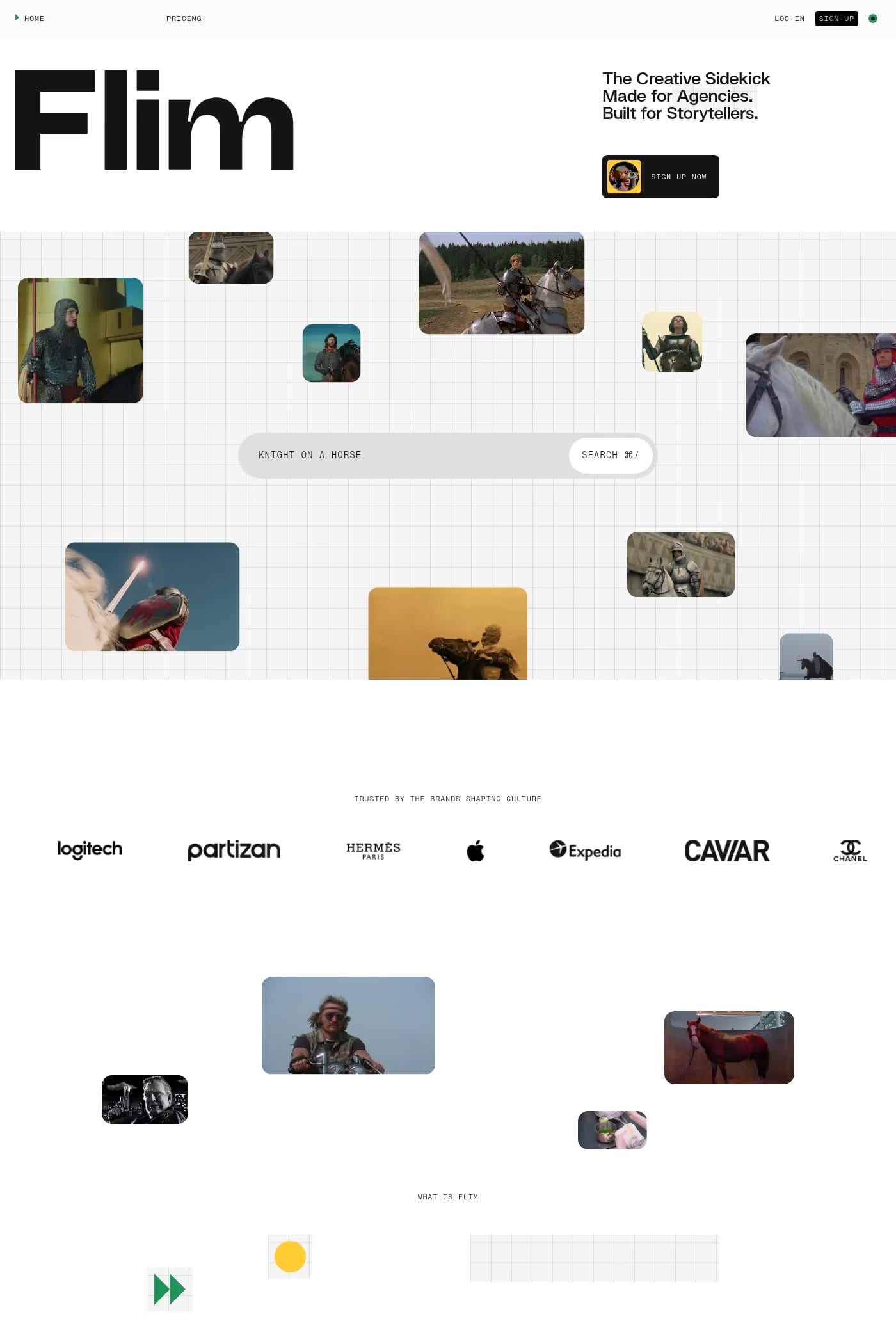
Swizzy is a sans-serif typeface from Rellence.
Swizzy is a clean Sans Serif typeface inspired by mid-century design and German clarity. Geometric, precise and timeless, ideal for modern typography.